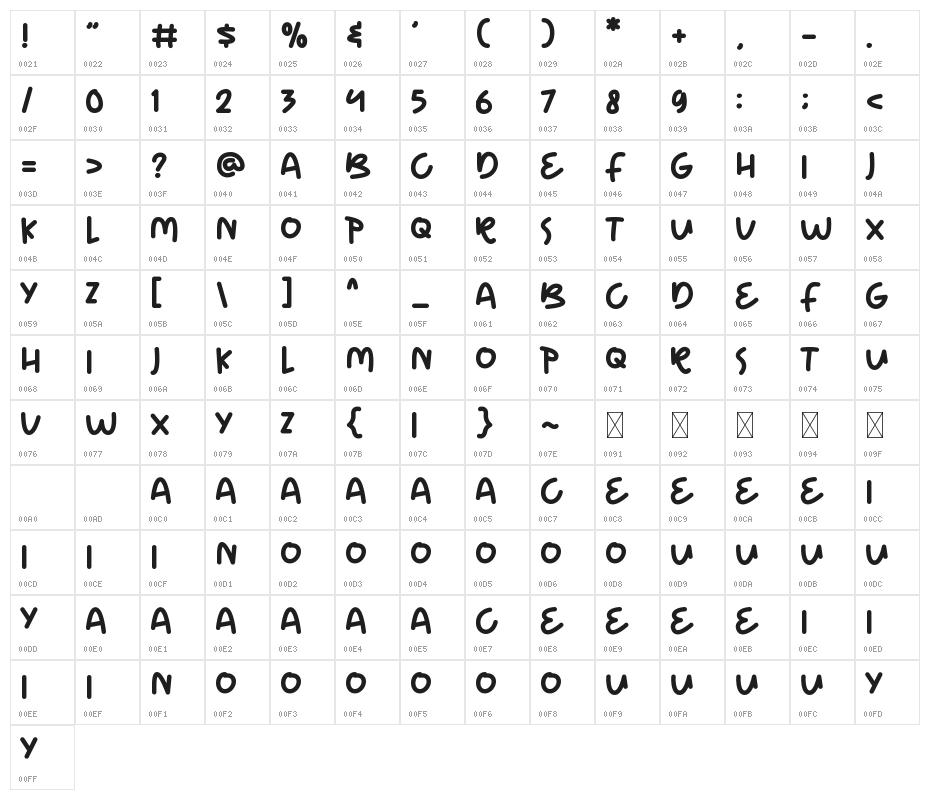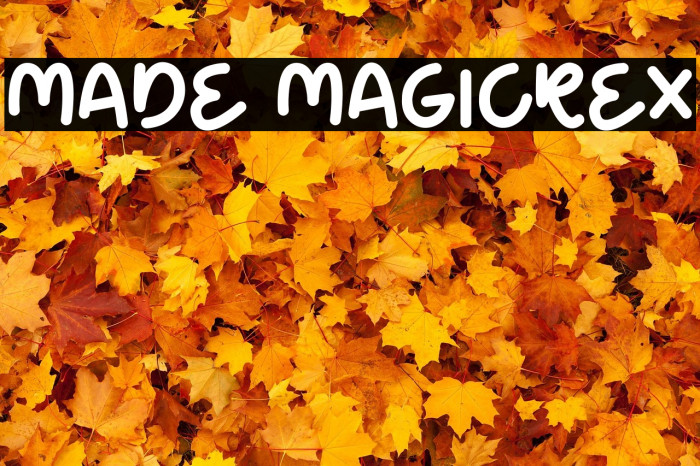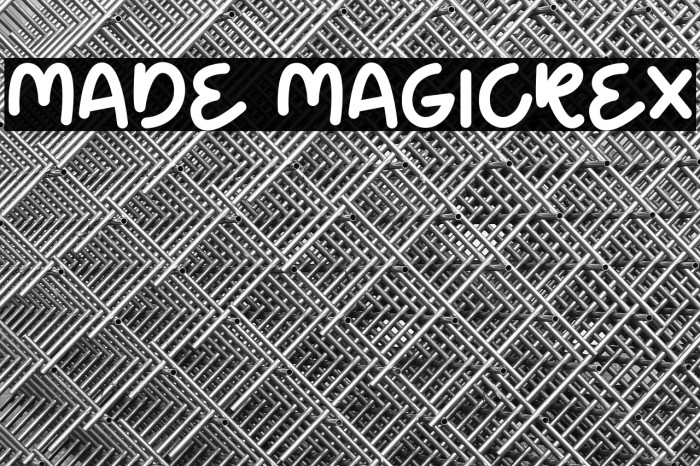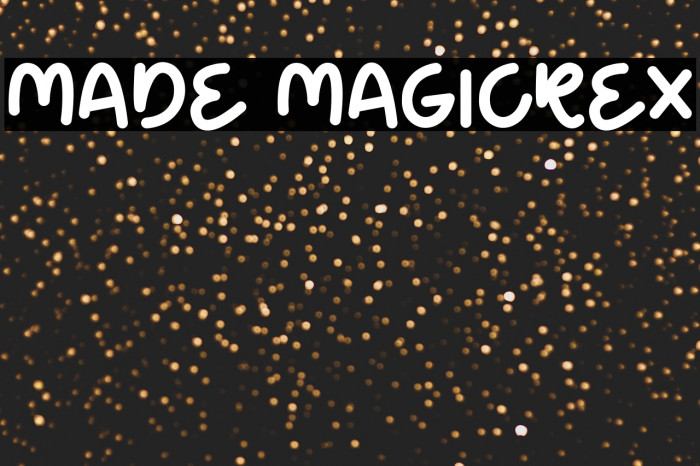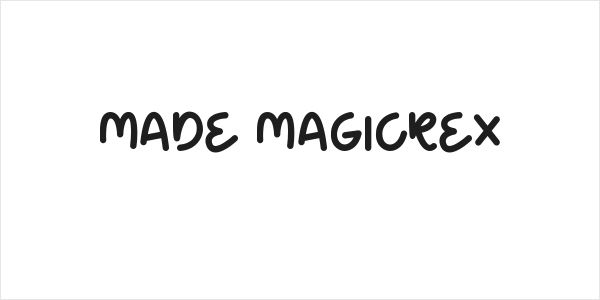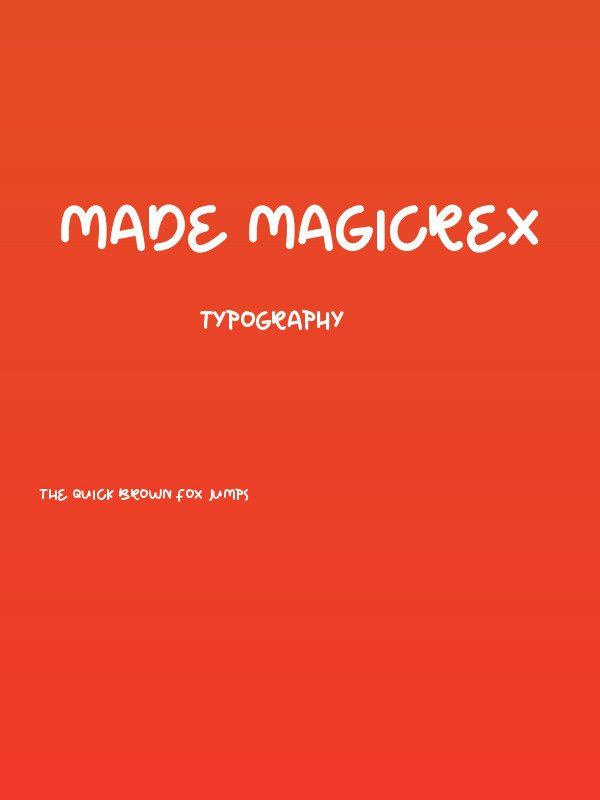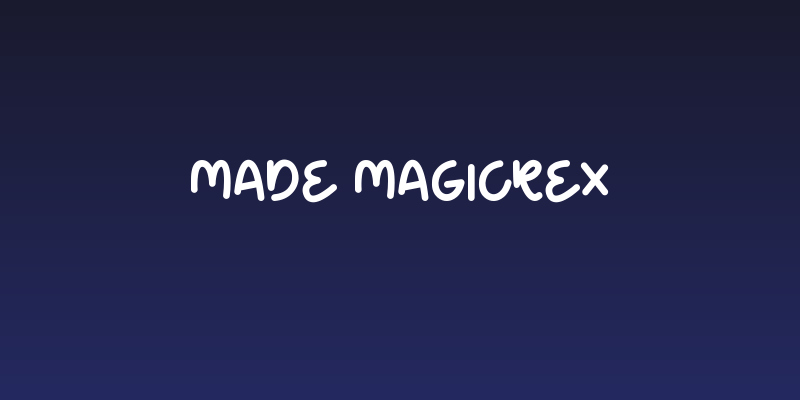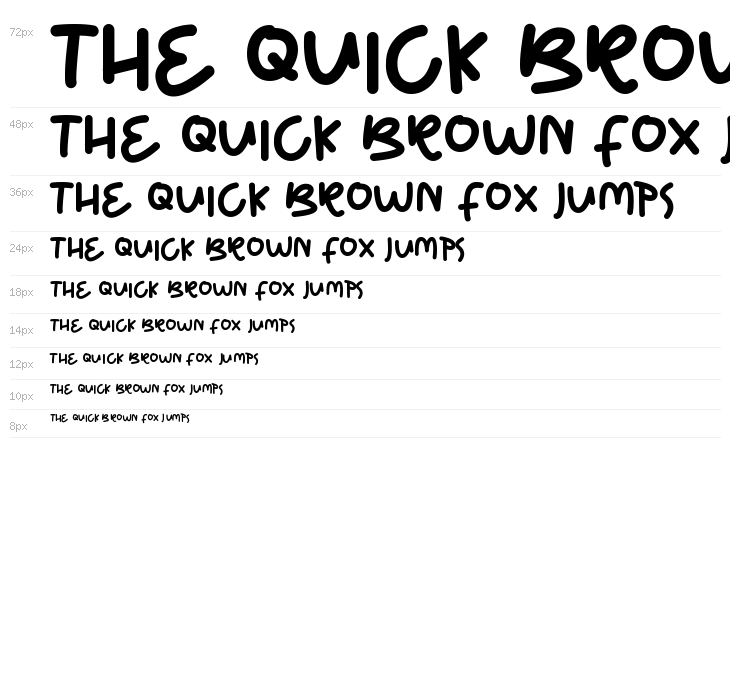
Made Magicrex Font
Made Magicrex Description
This playful and bold font features rounded, thick strokes that give it a friendly and approachable appearance. The letters are uniformly wide, with a consistent stroke weight that maintains legibility across different sizes. Its casual style is reminiscent of handwritten text, making it suitable for informal and creative projects. The characters are well-spaced, ensuring readability, while the rounded edges add a touch of softness. The numerals and special characters are designed to match the overall aesthetic, providing a cohesive look across all elements.
| Proposed Projects | Ideal for children's books, playful branding, greeting cards, and casual invitations. |